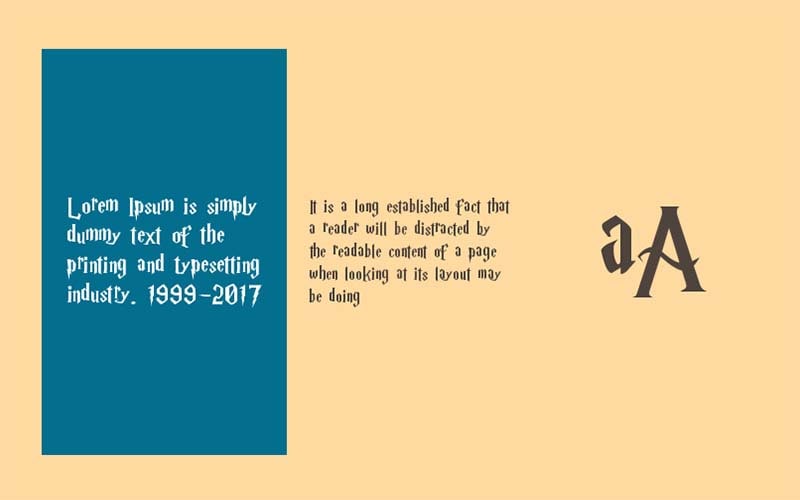
Today we are introducing an amazing font family called Harry P Font. This is also known as the Harry Potter font is a fancy font. This high-quality font was created and released by Phoenix Phonts.
The display font has available only a single style. This professional movie font is based entirely on the Harry Potter series. This font is used in the novel series – written by Harry Potter, JK. Rowling, a British author.
The famous typeface is perfect for excellent projects such as social media pictures, invitation cards, poster advertisements, product packaging, watermarks, logo design, movie titles, and used for chapter titles.
The Harry Potter novel series is almost a novel we’ve all seen. This font family is ideal due to its crescent shape and unique stylish look. Harry Potter became very popular after the release of the first time.
Harry P Font
This novel font, according to such a long tradition, is one of the clean, most attractive, and most modern types of design style. This font has a scary and magical look which is great to be used on Harry Potter images and fancy writing.
This free font includes upper case, lower case, symbols, numbers, and a logo. This type of typography can be used for a variety of purposes, including horror stories, horror movie titles, and more.